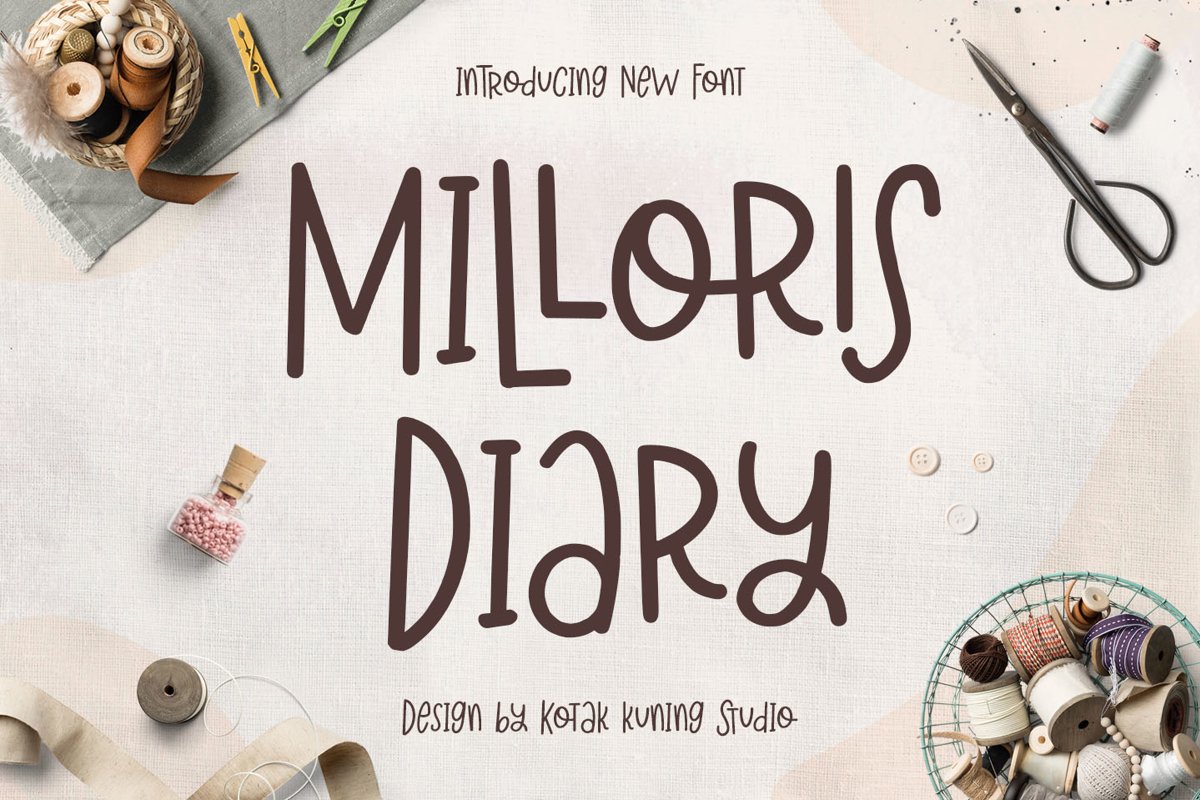
Cute Handwritten Font - Milloris Diary
Introducing Milloris Diary Font. A playful and unique font. It has a unique and different style and will give your design a fun touch.
Milloris Diary would be perfect for logos & branding, photography, watermark, social media posts, advertisements, invitation, product designs, label, stationery, wedding designs, product packaging, special events or anything that need handwriting taste.
• Milloris Diary includes capital and lowercase letters, Alternates, and Ligatures
• Numbers + punctuation